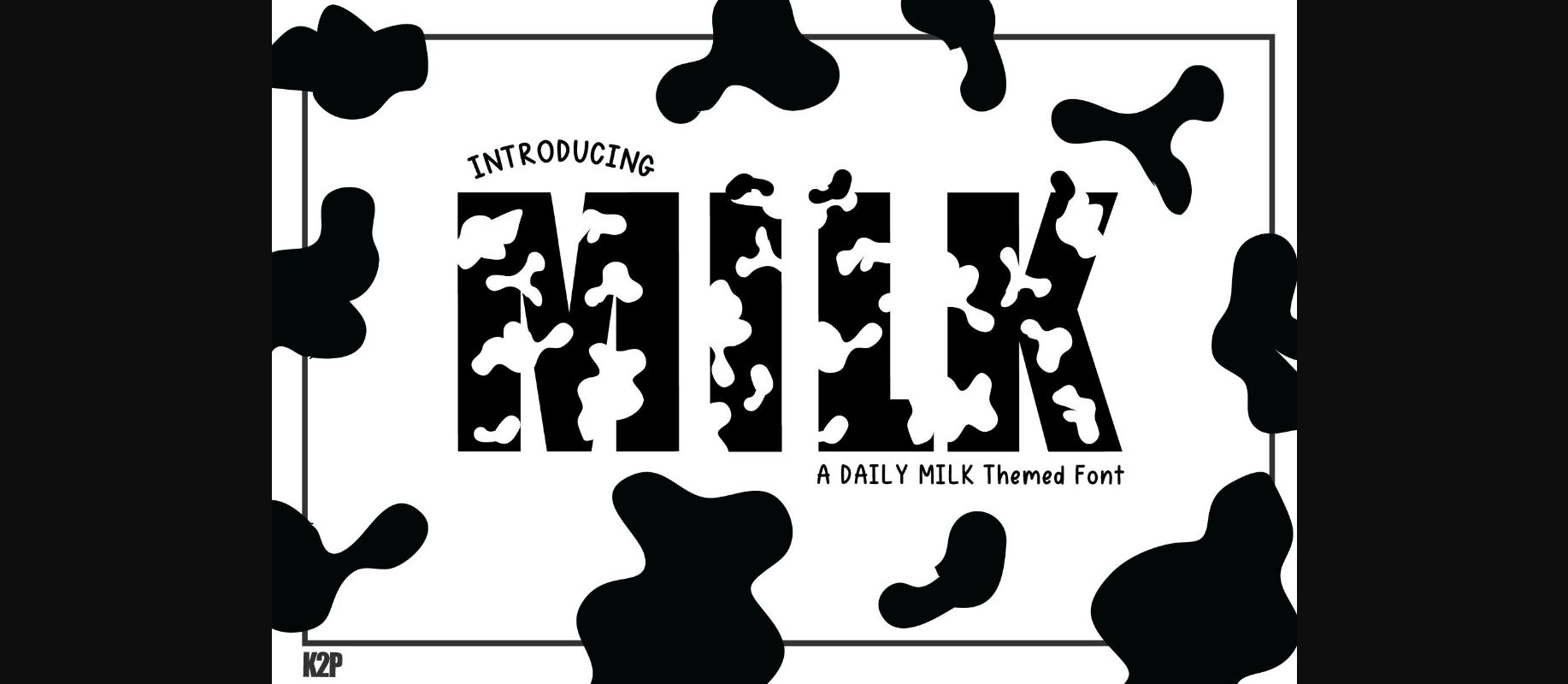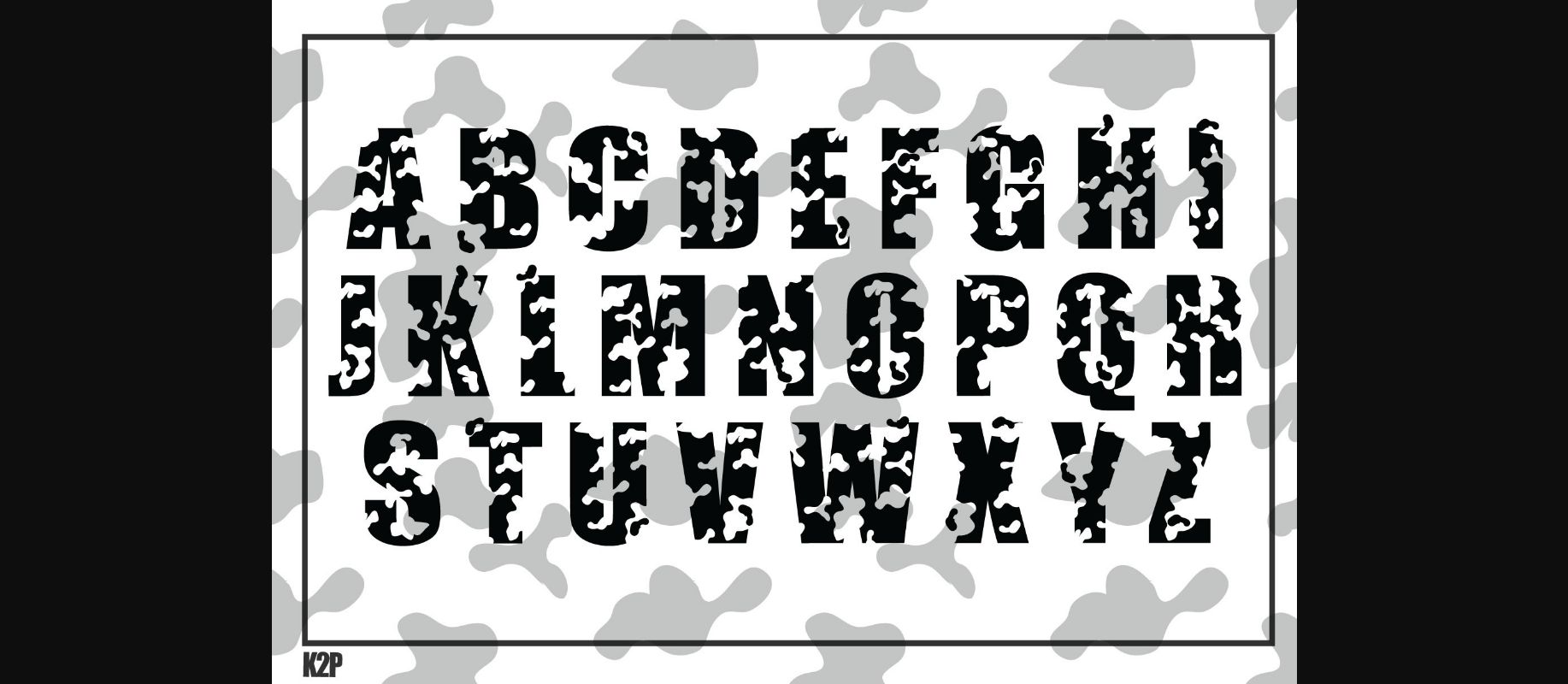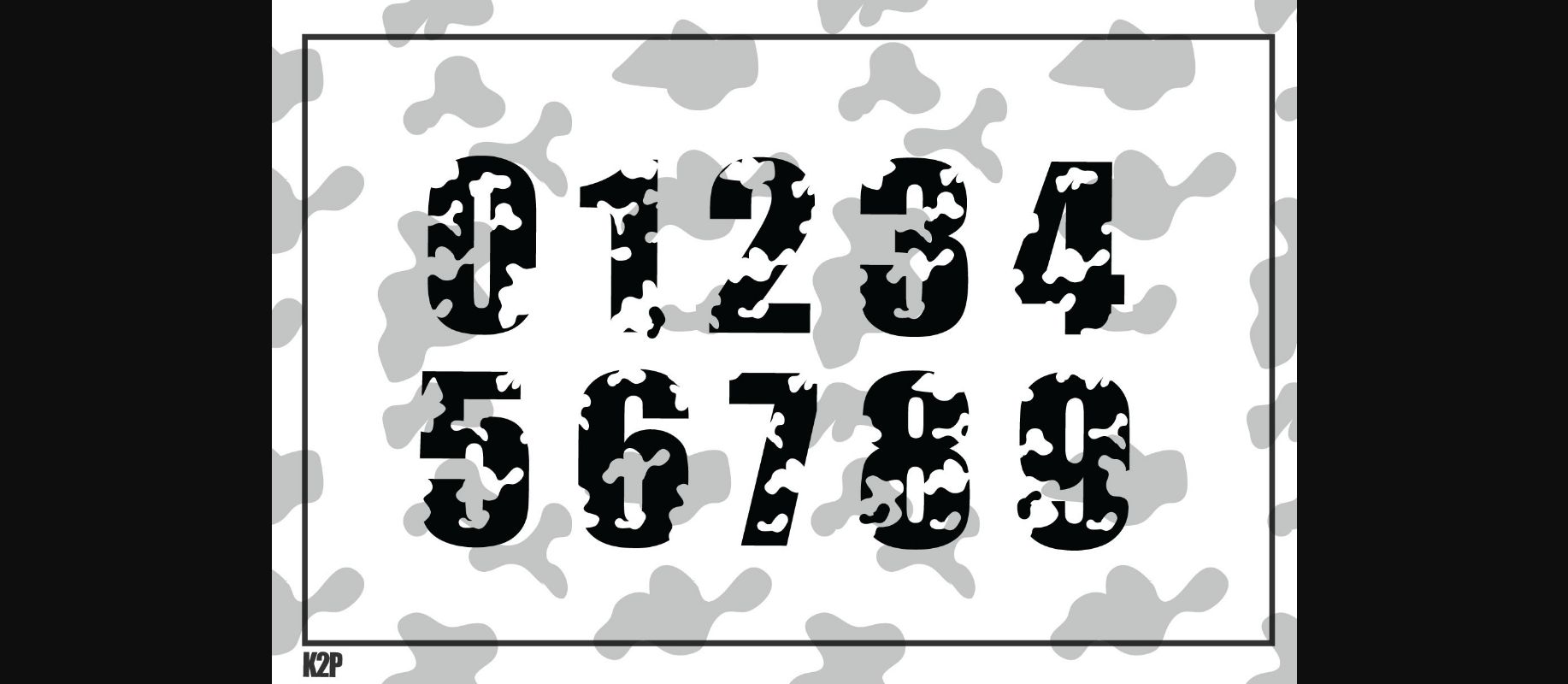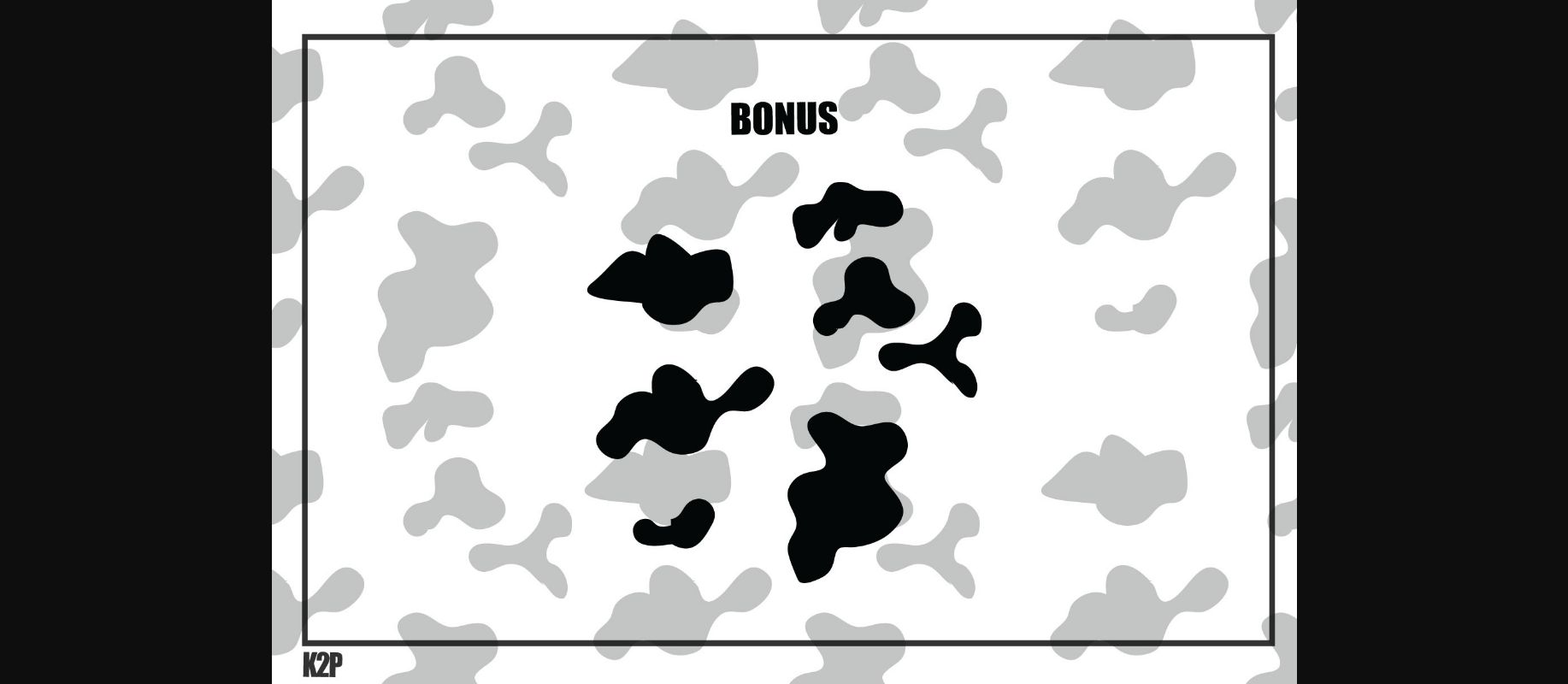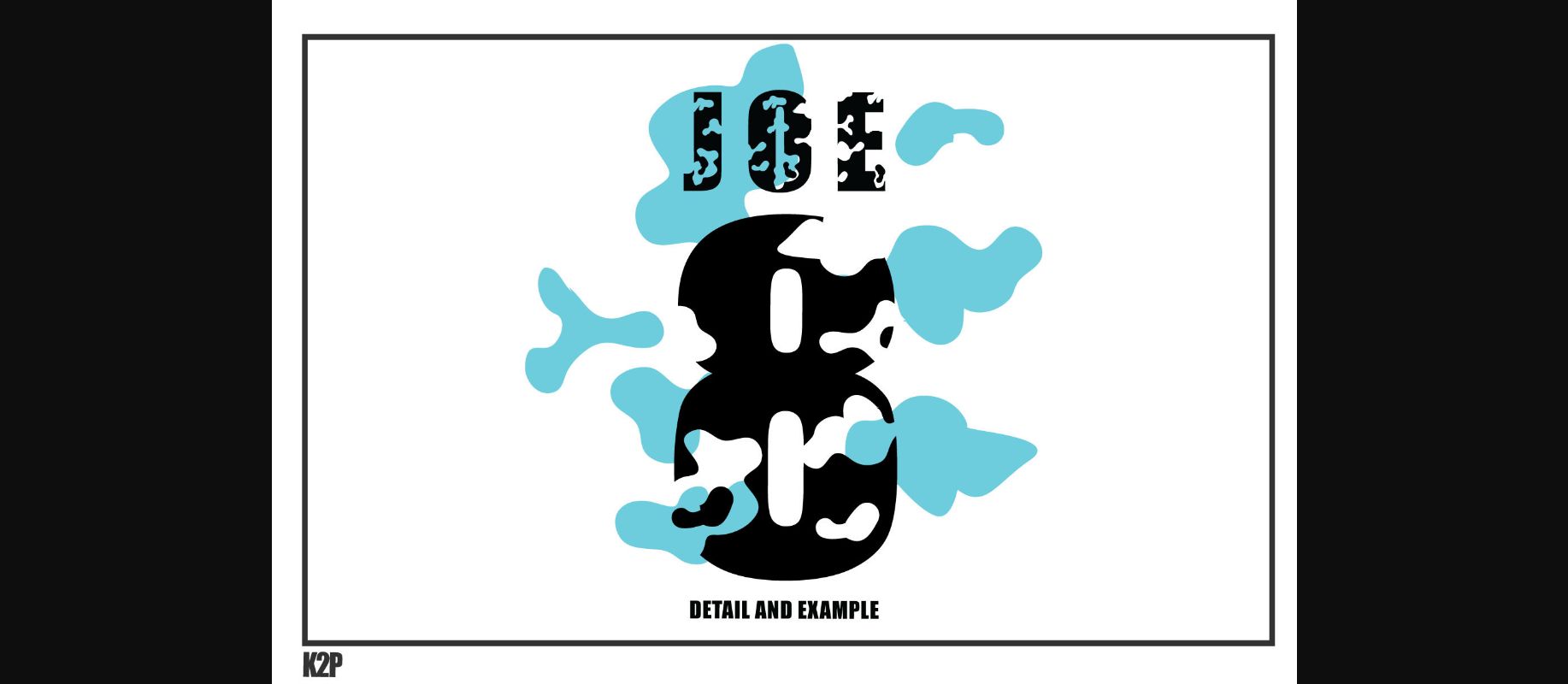
Milk Font
About Milk Font
Milk is a bold, cool-textured, and assertive decorative font. It can be used for various design ideas related to animals, farms, or dairy products. Have fun with this beautiful font and explore its endless variations.